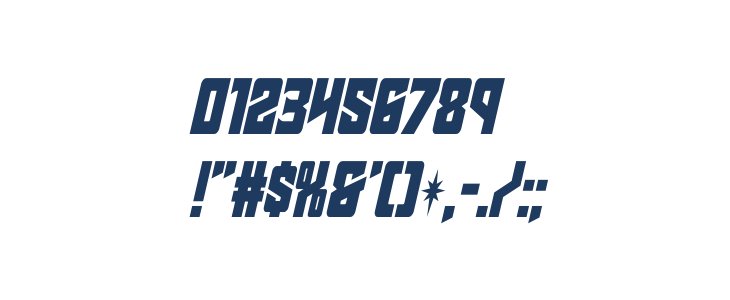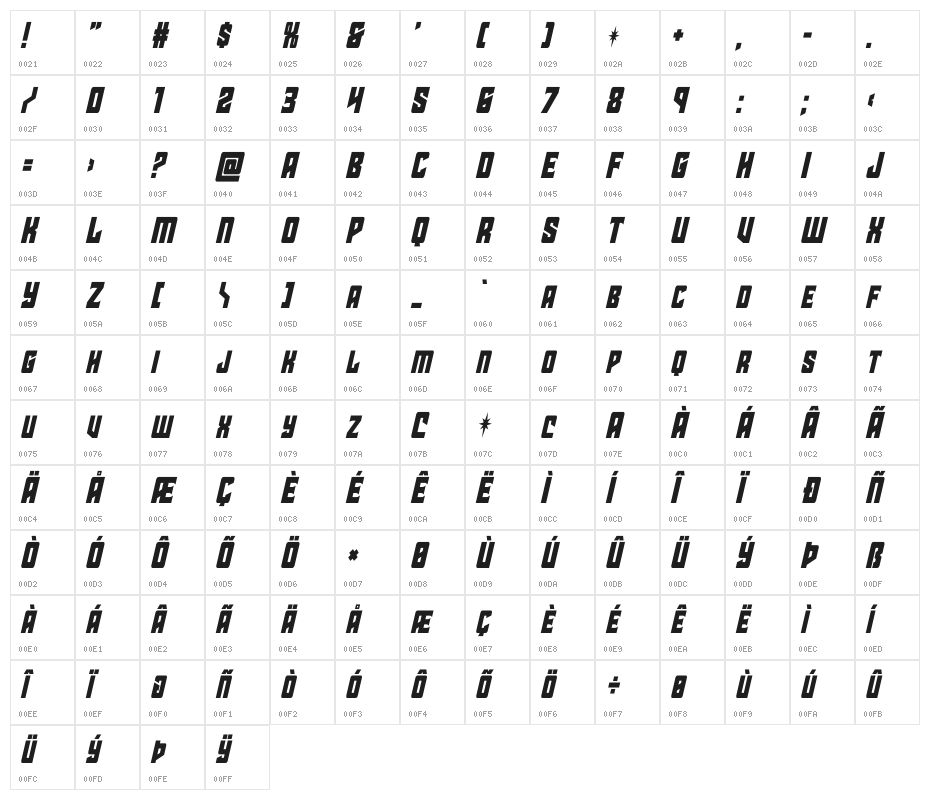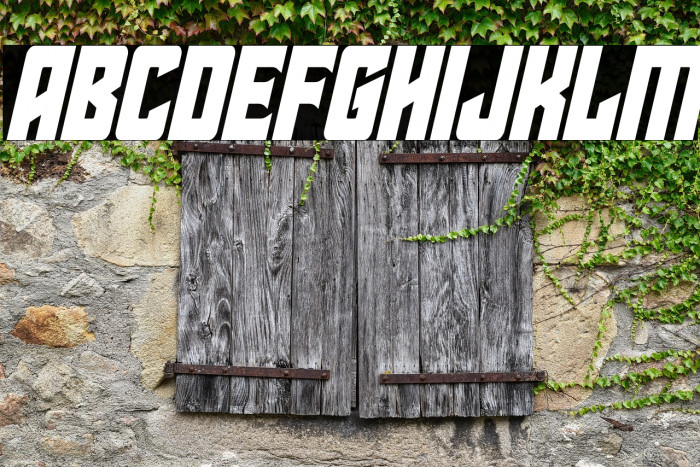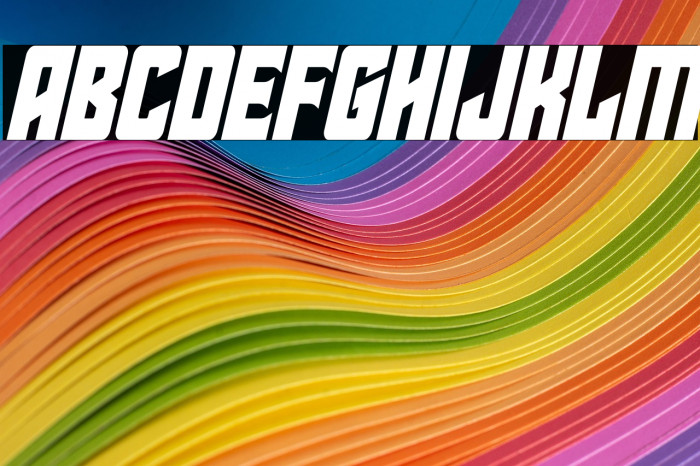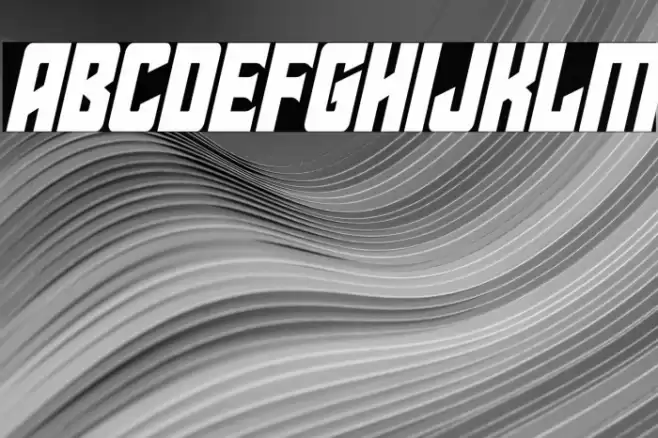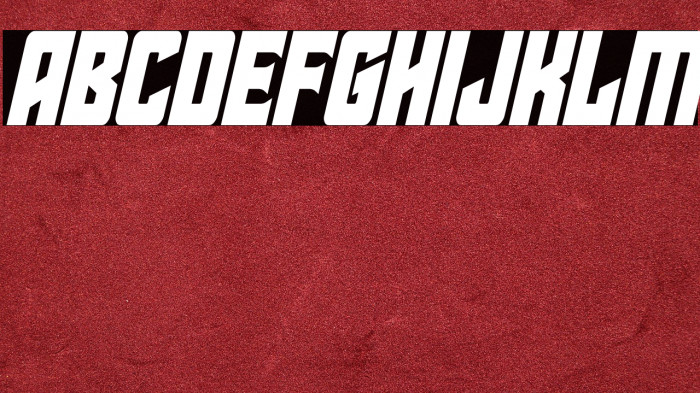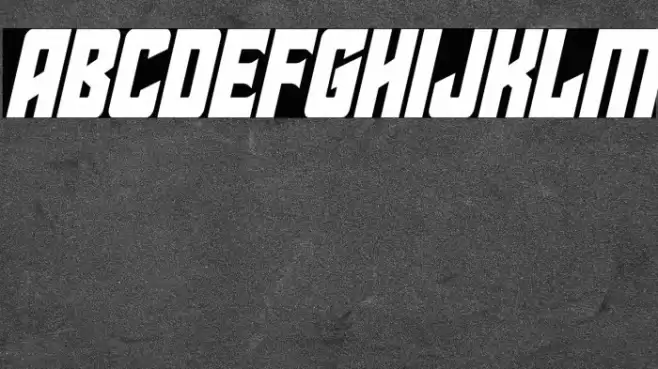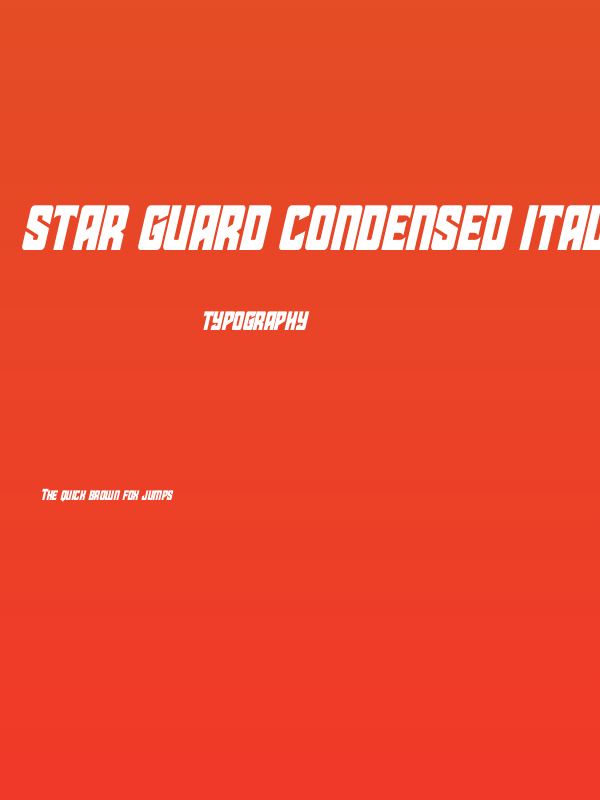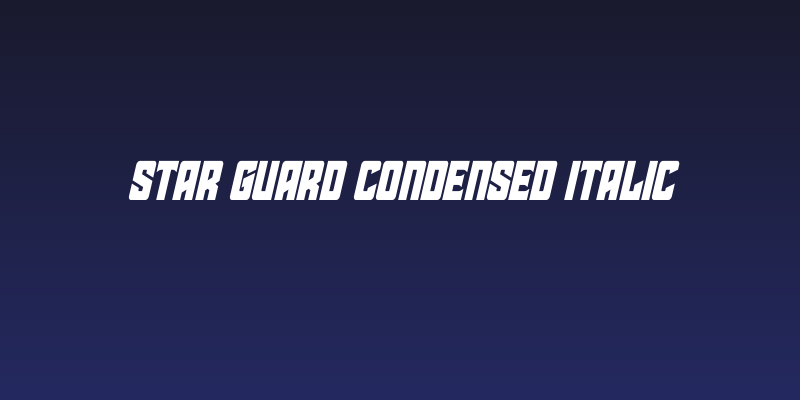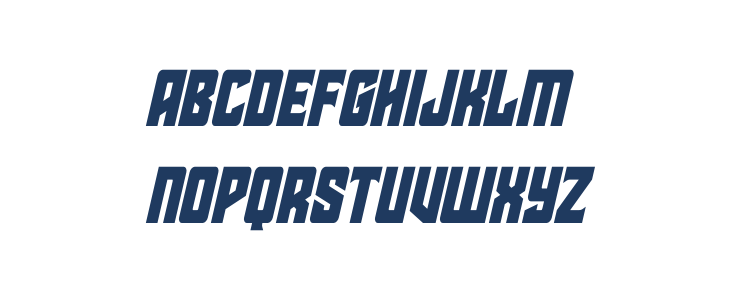
Star Guard Condensed Italic Font
Star Guard Condensed Italic Description
This font features a bold, condensed style with a distinct italic slant, giving it a dynamic and energetic appearance. The characters are tightly spaced, enhancing its compact and impactful look. The strokes are thick and consistent, providing a strong visual presence. The angular design and sharp edges contribute to its modern and futuristic feel, making it suitable for attention-grabbing headlines or titles. The font includes a full set of uppercase and lowercase letters, numbers, and a variety of special characters, ensuring versatility in design applications.
| Proposed Projects | Ideal for sports branding, action movie posters, video game titles, and dynamic advertising campaigns. |